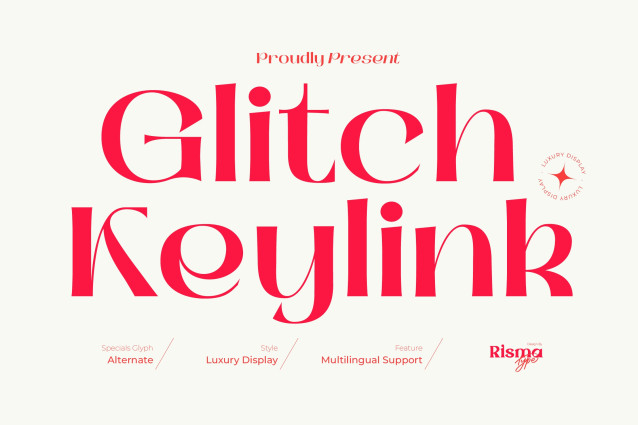
Glitch Keylink Font
Glitch Keylink Font is a modern luxury display typeface that blends bold elegance with contemporary edge. Designed to capture attention at first glance, it features refined curves, dramatic contrast, and distinctive letterforms that create a powerful visual identity.
Inspired by the tension between disruption and connection, Glitch Keylink combines classic sophistication with subtle experimental details. Its high-contrast strokes and expressive serifs give it a premium, editorial feel, while its unique character shapes add personality and memorability.
Perfect for branding, fashion campaigns, magazine headlines, posters, and high-end visual projects, Glitch Keylink is made for designers who want to make a confident and stylish statement.